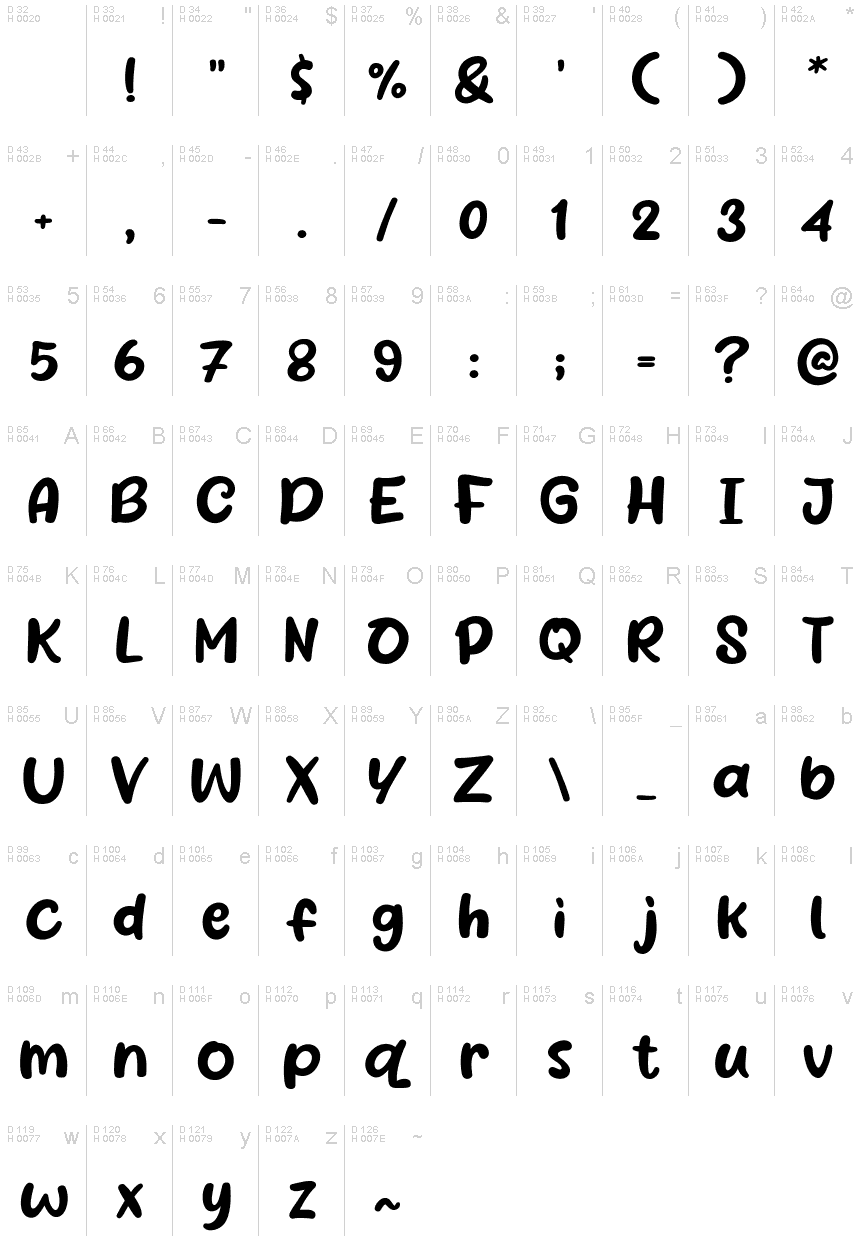
Basque Smile
Introducing Basque Smile, the fun and playful display font designed by Khurasan & Jalembe. Its bold and cartoonish style is perfect for a variety of projects that require a touch of creativity and humor. Whether you're designing a children's book, creating eye-catching posters, or crafting quirky logos, Basque Smile will add a unique charm to your work. With its whimsical curves and lively personality, this font is sure to put a smile on anyone's face. Download Basque Smile today and let your imagination run wild!